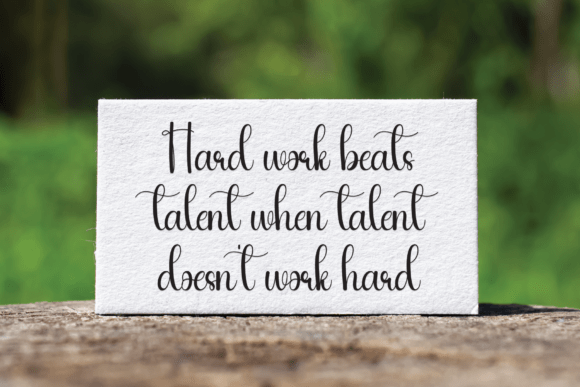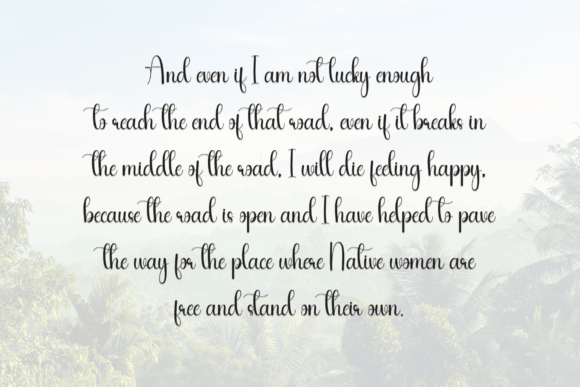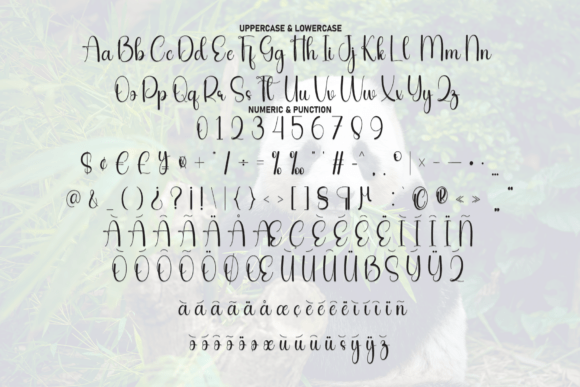
Introduction to Panda Font
Have you ever stared at a blank canvas, waiting for the perfect font to bring your creative project to life? For many designers, that moment of inspiration is what sets their work apart. As you search for the ideal font to capture the essence of your design, you may stumble upon the Panda Font – a stylish script font that exudes elegance and modern charm.
The Panda Font is a valuable resource for designers, offering a unique combination of fluid strokes, graceful curves, and carefully balanced letterforms. Its natural flow and refined details make it perfect for logos, invitations, packaging, and social media graphics. With its high quality and versatility, this font adds a touch of sophistication and personality to any design, whether you’re working with a transparent background or a complex layout.
Panda Font
- Unique and playful design perfect for creative projects
- High-quality font with transparent background for easy customization
- Includes 8 font styles with varying weights and styles
- Includes a comprehensive character set, including international characters
Honest Review: Panda Font
I recently had the chance to experiment with the Panda Font, and I must say, it’s been a fun addition to my design toolbox.
- ✨ High-quality glyphs: The Panda Font boasts crisp and clear letterforms that make it perfect for creative projects.
- ✨ Versatile style: The font’s modern and playful design allows it to be used in a wide range of contexts, from digital to print.
- ⚠️ Limited customization options: While the font itself is high-quality, the customization options are relatively limited.
- ⚠️ Not suitable for complex text layouts: Due to its playful nature, the Panda Font may not be the best choice for complex text layouts or body text.
Overall, I’m quite impressed with the Panda Font. It’s a great addition to any designer’s toolkit, and I’d definitely recommend it for creative projects. Just keep in mind its limitations, and you’ll be all set for a fun and stylish design experience.
The Panda Font is perfect for a variety of creative projects, including social media graphics, business cards, and product packaging. Its high-quality design and transparent background make it a versatile resource for designers and non-designers alike.